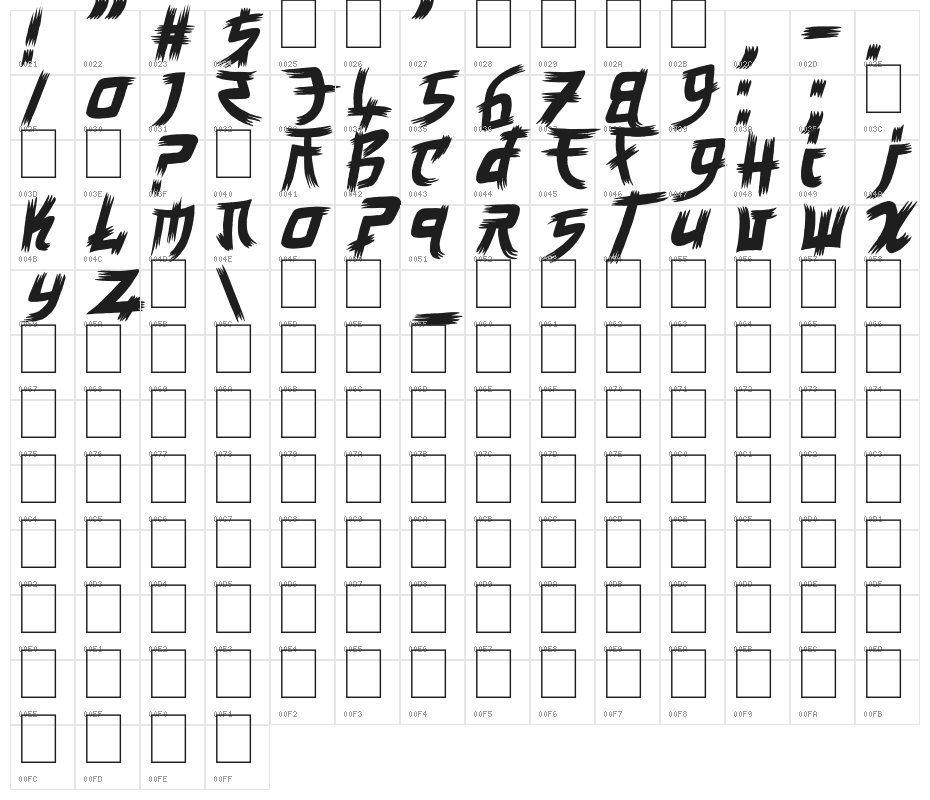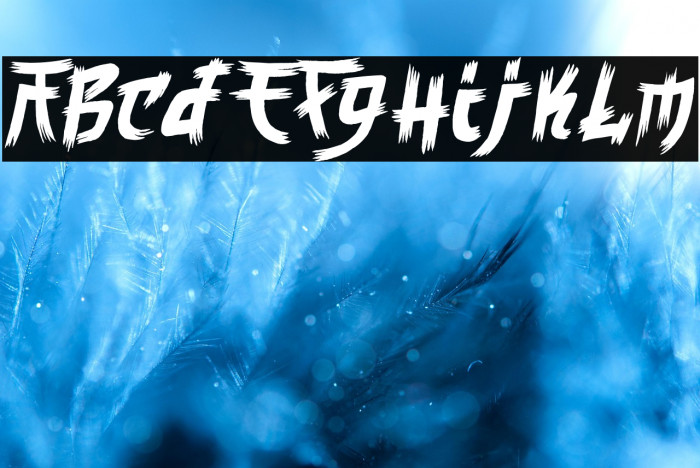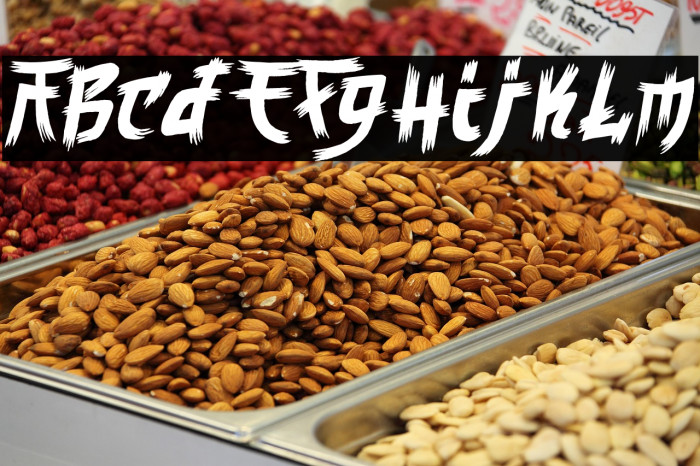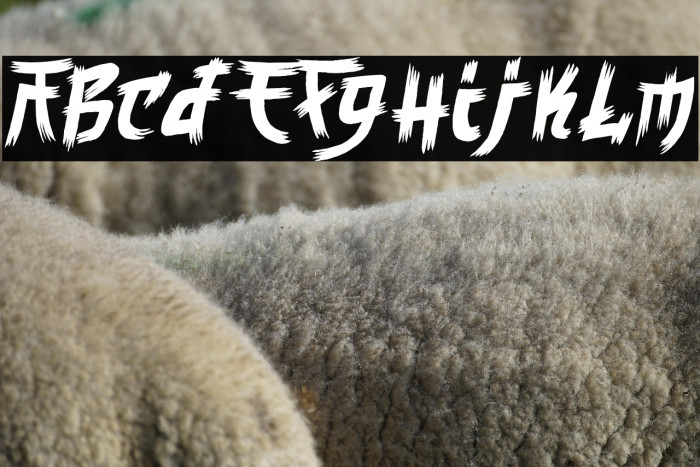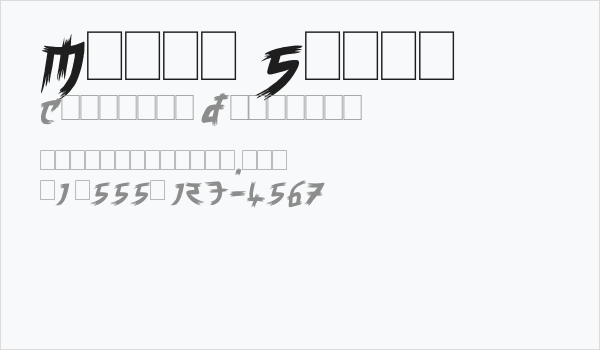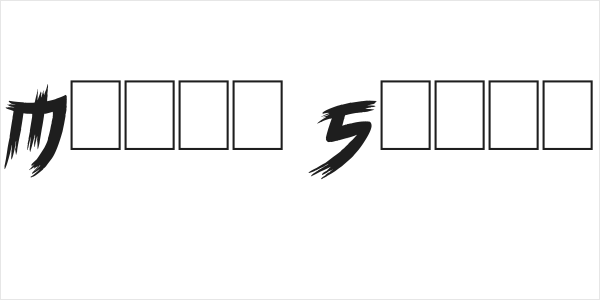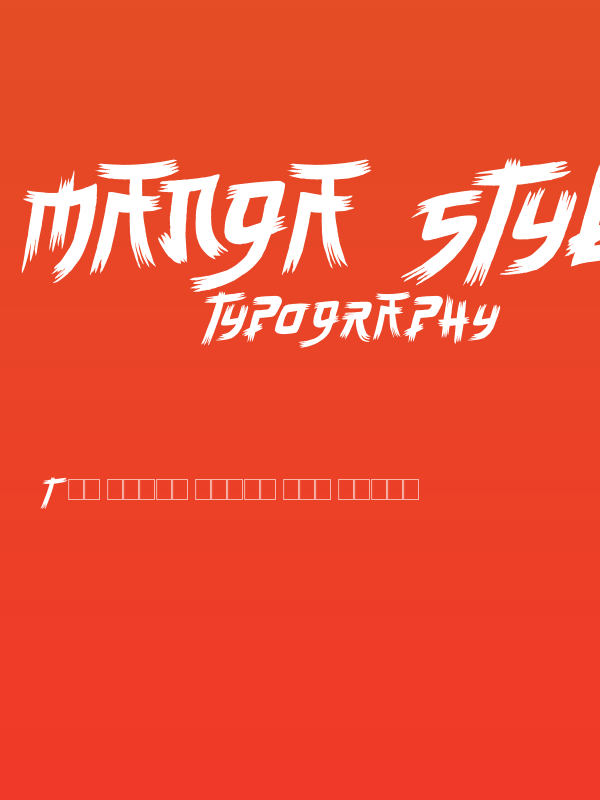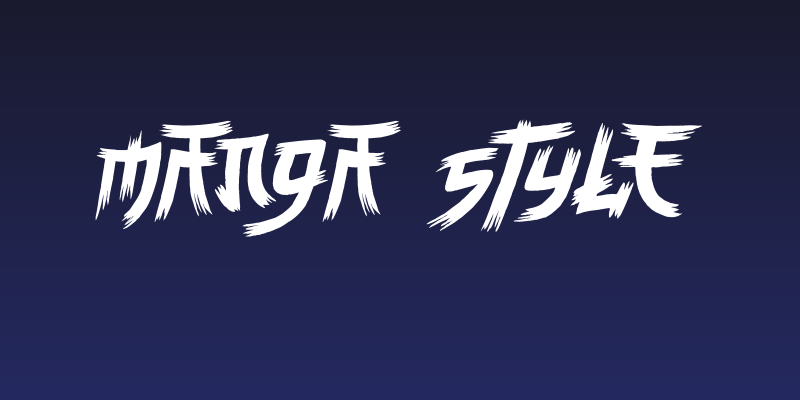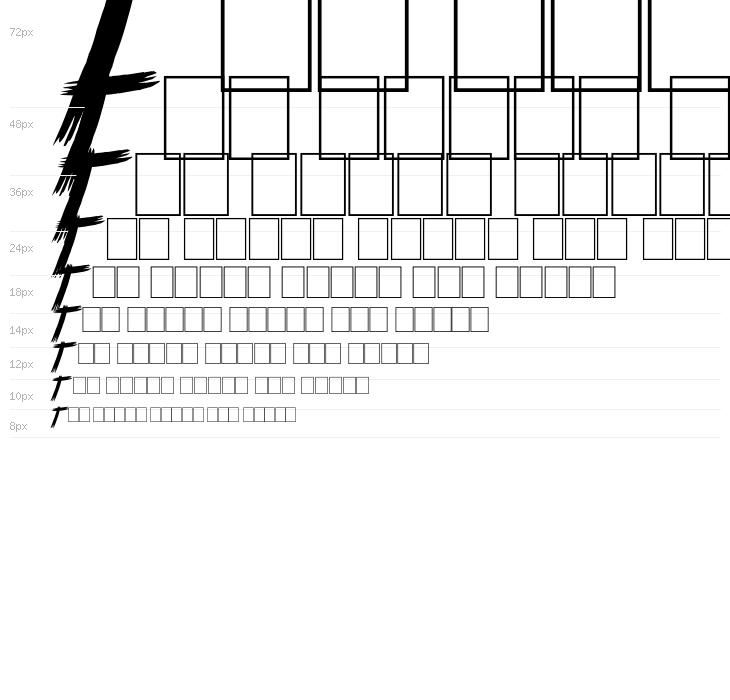
Manga Style Font
Manga Style Description
This font exhibits a dynamic and energetic style, reminiscent of manga and comic book aesthetics. The characters are bold and feature sharp, brush-like strokes that convey a sense of movement and intensity. The uppercase and lowercase letters maintain a consistent style, with exaggerated angles and a slightly aggressive flair. The numbers and special characters follow the same design principles, ensuring a cohesive look across all glyphs. This font's unique appearance makes it stand out, ideal for projects that require a dramatic and impactful visual presence.